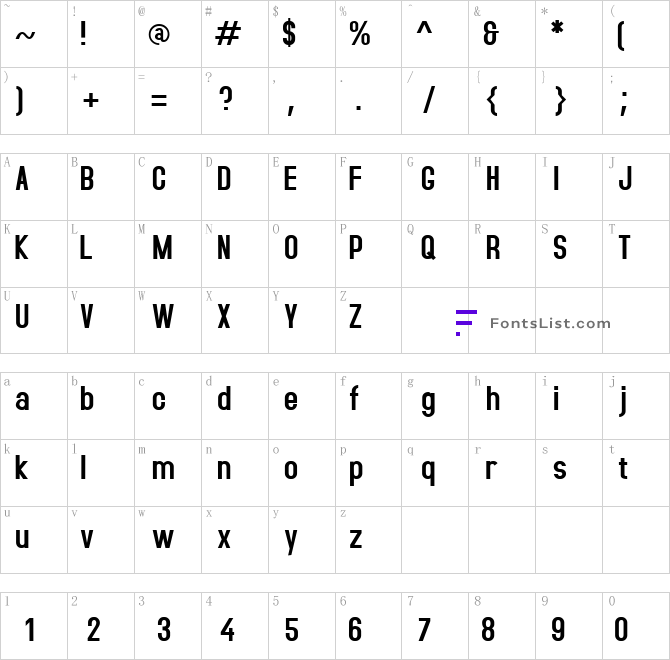
- Font Name:Accidental Presidency
Accidental-Presidency-copy-1-.ttf is a very beautiful artistic font, Accidental-Presidency-copy-1-.ttf is widely used in the design and printing of various books and pictures,Accidental-Presidency-copy-1-.ttf has a strong visual impact,Accidental-Presidency-copy-1-.ttf is a commonly used font in newspapers, magazines and books, and is used in posters, e-commerce Poster design, store design, logo design, font design and other fields.Accidental-Presidency-copy-1-.